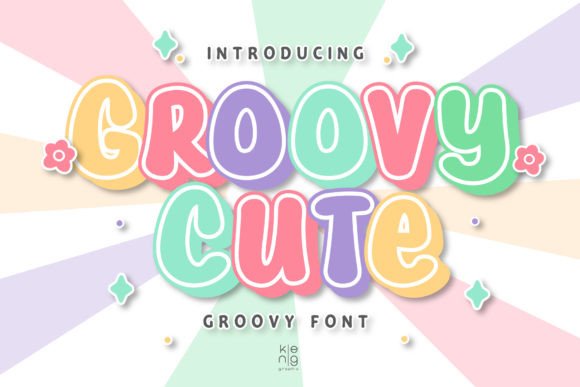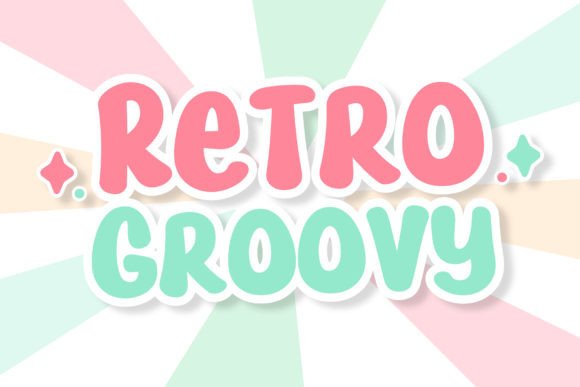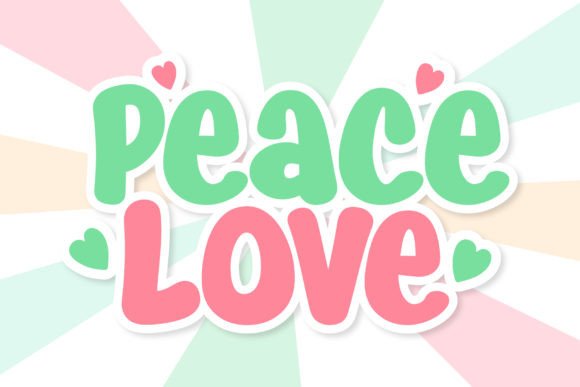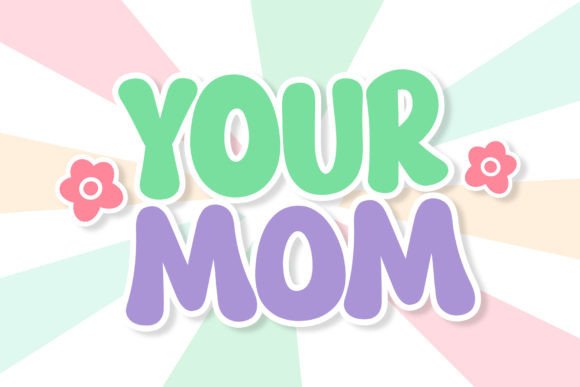
Groovy Cute Font
About the Groovy Cute Font
Explore the possibilities with Groovy Cute Font, a font that offers both beauty and functionality. Groovy Cute Font is a display font with a great punch. Everything written in this font will be instantly recognizable and will attract attention. It will work great for comic book style, online games, cards, love shirts, posters, movie titles, eye-catching social media posts, or anything that requires youthfulness and courage.
Groovy Cute Font’s bold, playful energy makes it ideal for headlines, short text blocks on posters, and branding for youthful, energetic brands – think clothing lines, toy companies, or social media campaigns. It’s less suitable for body copy or UI elements; its highly stylized nature compromises readability in extended text.
Pairing it with a clean sans-serif like Open Sans for body text creates a strong visual contrast, balancing the font’s exuberance with clear readability. Alternatively, a more playful script font can enhance the overall whimsical feel, but ensure legibility by using the script sparingly.
This font’s core personality is undeniably youthful and fun, projecting a sense of bold confidence. Avoid using it for projects requiring sophistication or formality.
Groovy Cute Font Usage Examples
Groovy Cute Font Example